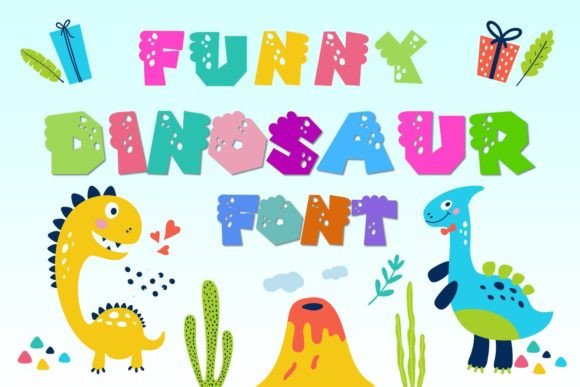
Embark on a whimsical adventure with Funny Dinosaur, the display font that ignites the imagination and sparks creativity. Designed by the talented OWPictures, this extraordinary font is a feast for the eyes, capturing the essence of childhood wonder and exploration.
With its charming dinosaur elements, Funny Dinosaur is the ultimate choice for kids' activities and school projects. Transform ordinary designs into captivating tales of bravery, friendship, and adventure. Let your little ones' imaginations run wild as they immerse themselves in the magical world of dinosaurs.
From invitations to posters, greeting cards to worksheets, Funny Dinosaur adds a touch of magic to every creation. Its playful and vibrant characters bring life to any design, engaging young minds and leaving a lasting impression. Watch as their eyes light up with delight as they discover the hidden treasures within each letterform.
Funny Dinosaur is not just a font; it's a portal to a world of imagination. It's a storyteller, a playmate, and a friend. It's the perfect companion for any project that seeks to capture the boundless creativity and wonder of childhood.
Let Funny Dinosaur be your artistic guide, leading you on a journey through a prehistoric landscape inhabited by friendly dinosaurs and endless possibilities. Unleash your inner child and create designs that resonate with the hearts and minds of young and old alike.
With Funny Dinosaur, every project becomes an adventure, every idea takes flight, and every design tells a story. So, embark on this enchanting journey today and discover the magic that awaits you.